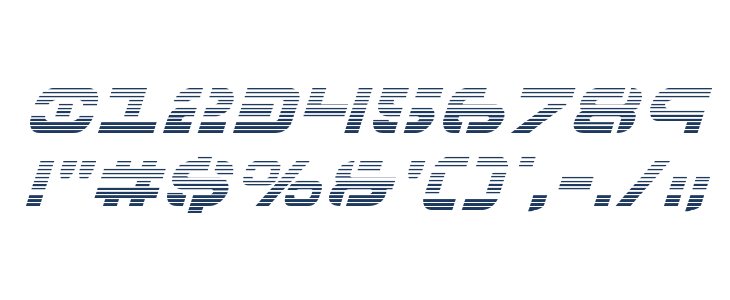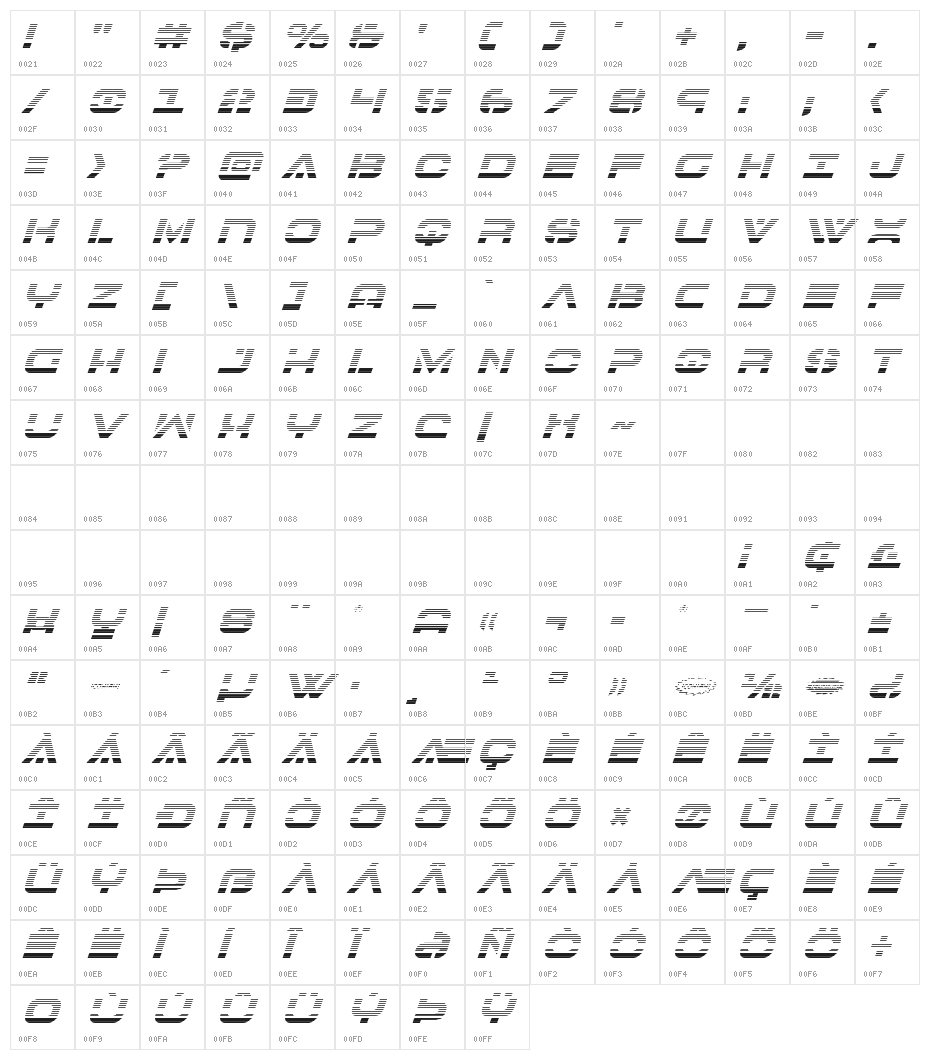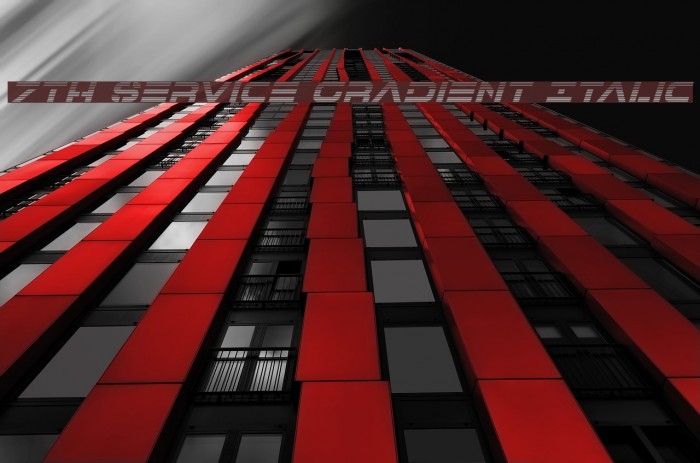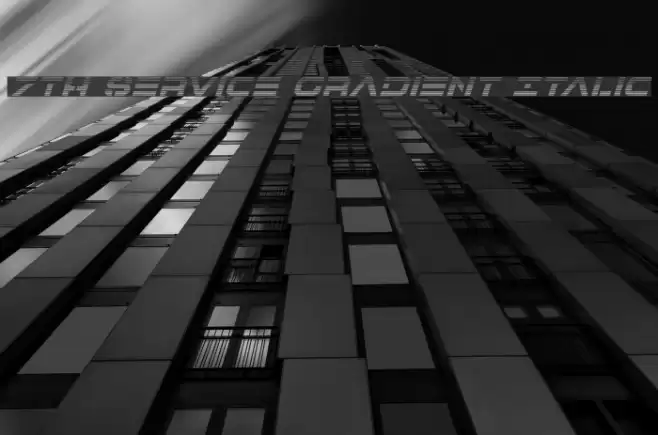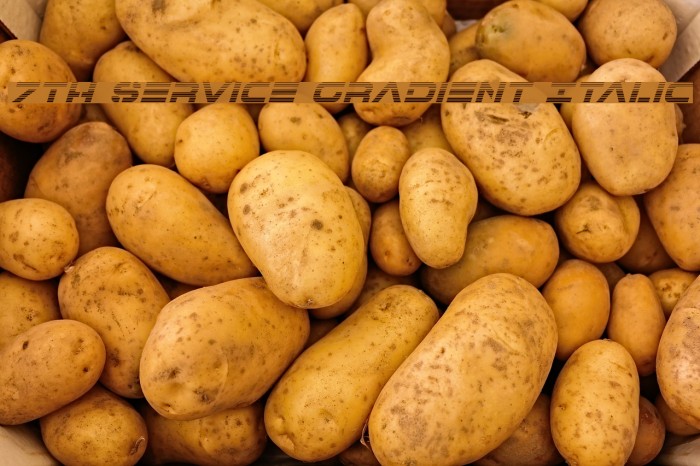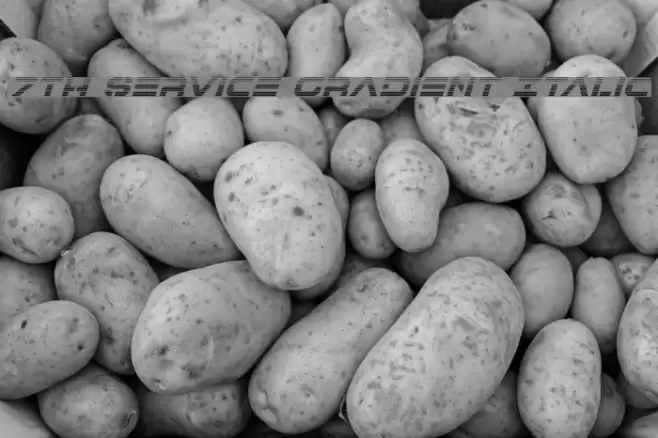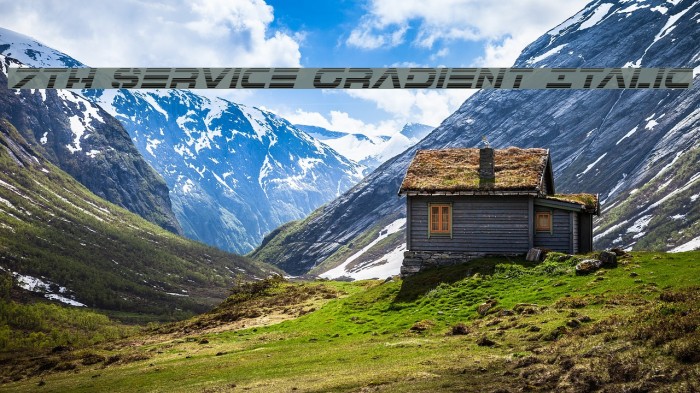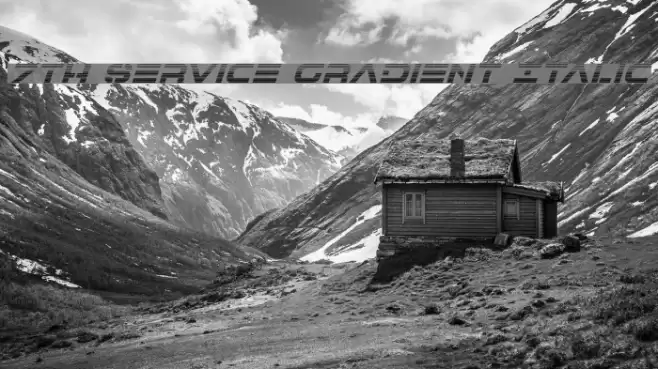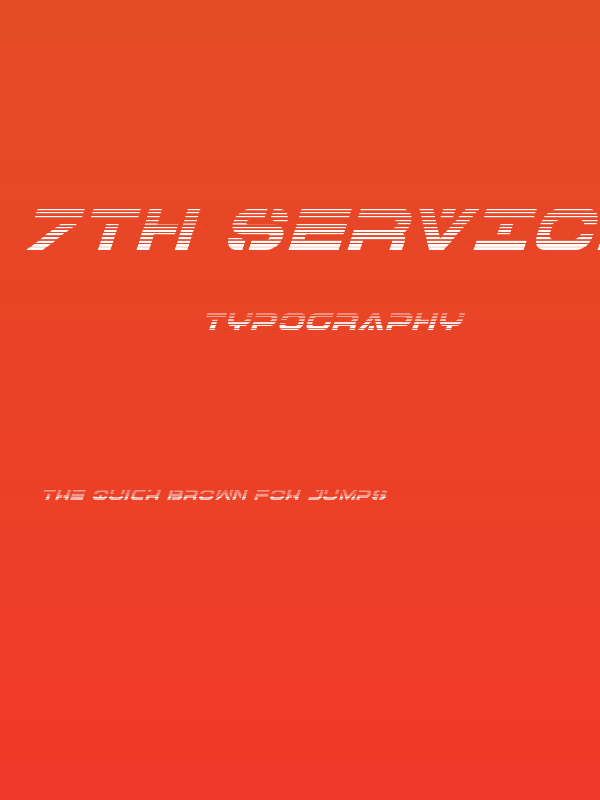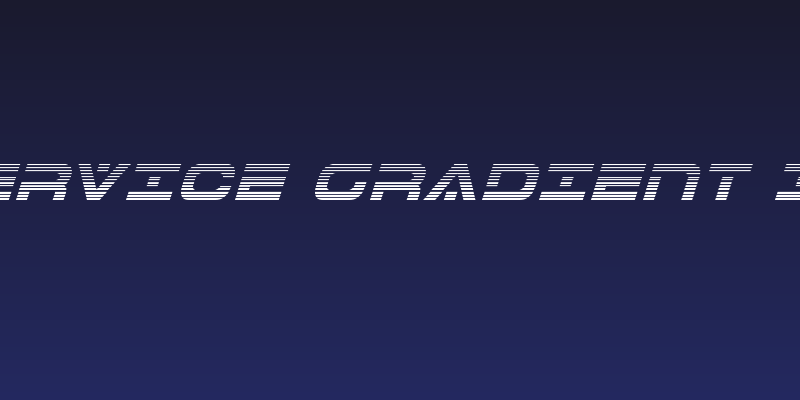
7th Service Gradient Italic Font
7th Service Gradient Italic Description
This font features a dynamic and futuristic design, characterized by its italicized and gradient-styled letters. The characters are composed of horizontal lines that create a sense of motion and speed, making it ideal for modern and tech-oriented projects. The uppercase and lowercase letters maintain a consistent style, with a unique approach to each character that enhances readability while maintaining a distinct aesthetic. The numerals and special characters follow the same design principles, ensuring uniformity across all glyphs.